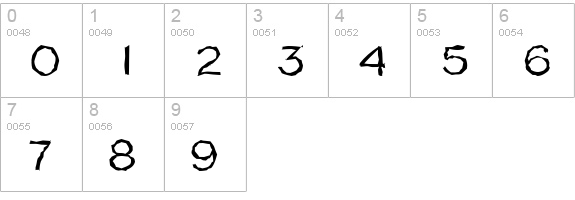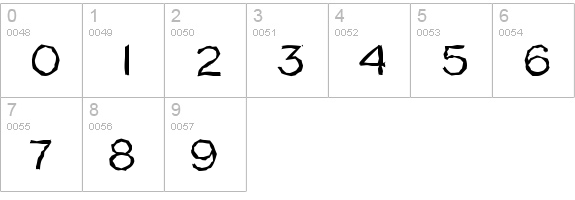
NapoliRandom-Regular Font Details
NapoliRandom-Regular is the standard, neutral variant in the NapoliRandom typeface family \xE2\x80\x94 well suited to general body text, paragraphs, and standard typographic work.
NapoliRandom-Regular is a versatile and stylish font that exudes creativity and charm. With its unique and playful design, this font is perfect for adding a touch of whimsy to your projects. Whether you're working on invitations, posters, or branding materials, NapoliRandom-Regular will surely make your text stand out. The best part? NapoliRandom-Regular is available for free download at FontsMarket.com. Simply visit the website and start using this delightful font in your designs today. Don't miss out on the opportunity to add a touch of fun and character to your projects with NapoliRandom-Regular!